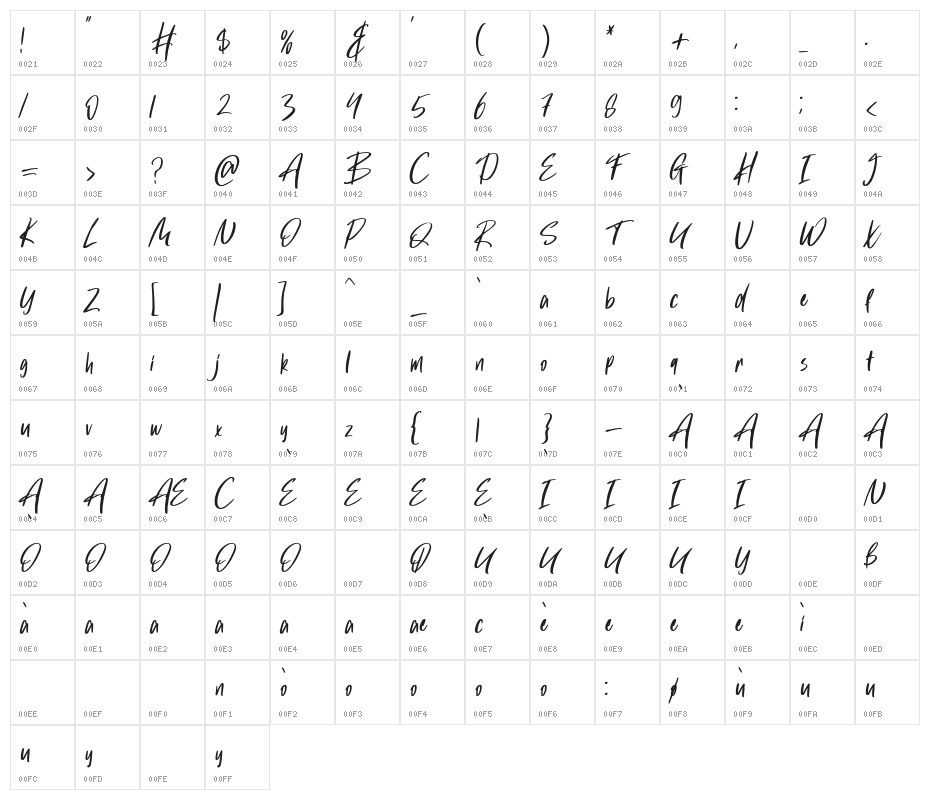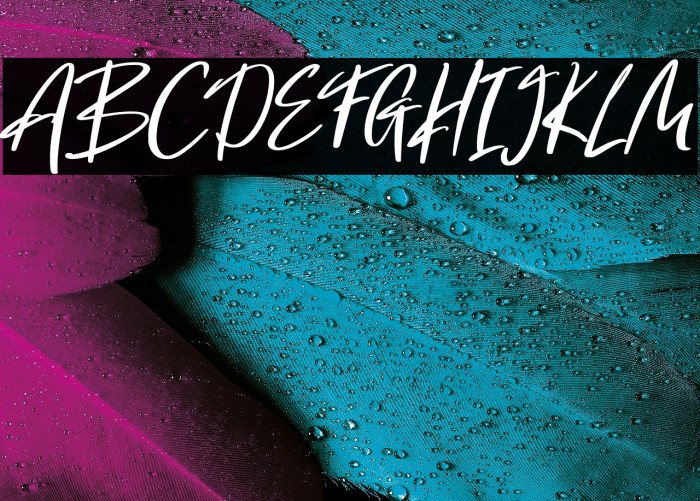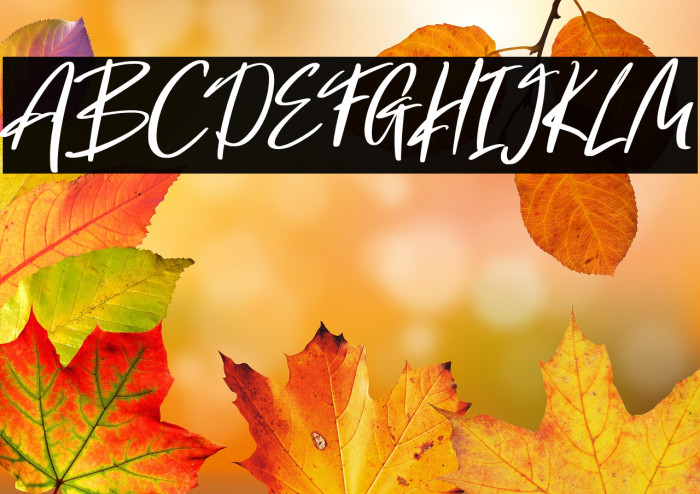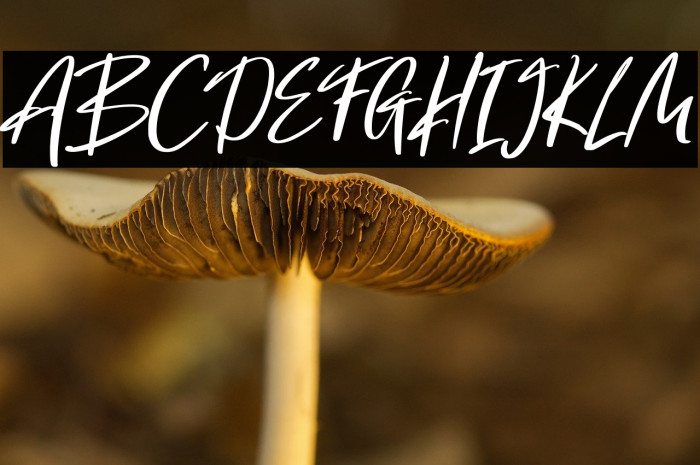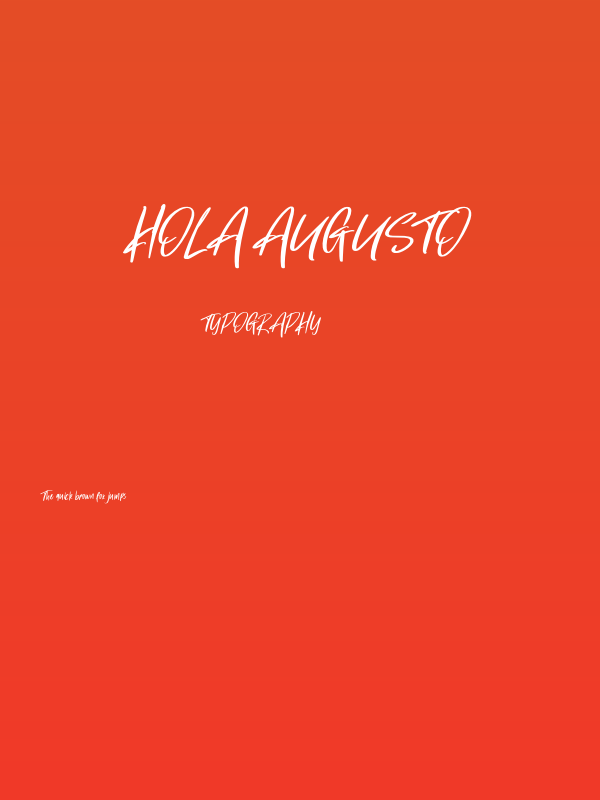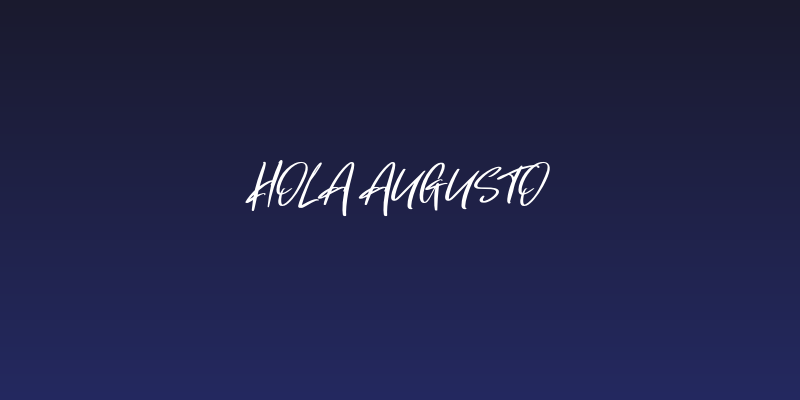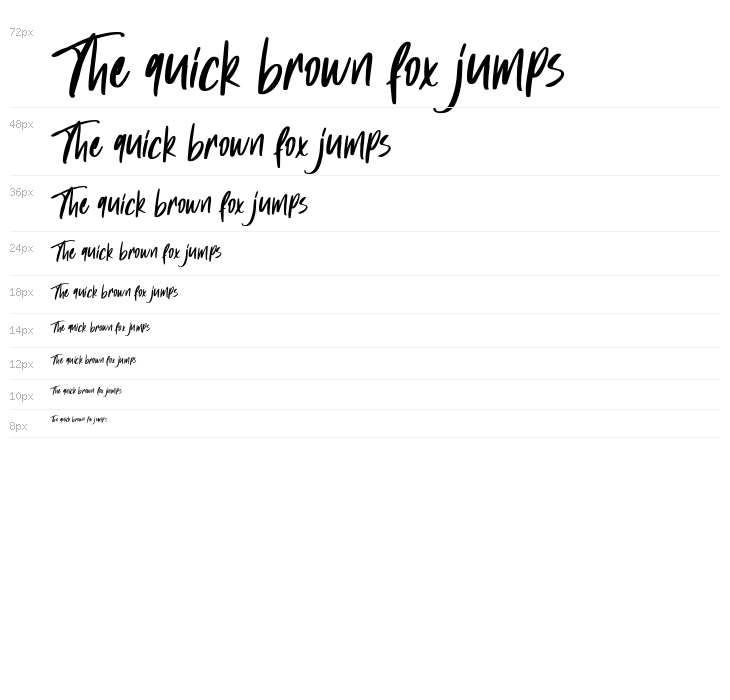
Hola Augusto Font
Hola Augusto Description
This font features a dynamic and expressive handwritten style, characterized by its fluid and energetic strokes. The uppercase letters are bold and slightly slanted, giving a sense of movement and spontaneity. The lowercase letters maintain a consistent flow, with some characters extending below the baseline, adding to its casual and informal appearance. The numerals are well-integrated, matching the overall style with their slightly exaggerated curves. Special characters are creatively designed, maintaining the playful and artistic feel of the font. This typeface is perfect for projects that require a personal touch or a sense of creativity.
Use CaseLogos, Headlines, Invitations
Proposed ProjectsIdeal for greeting cards, invitations, branding projects, and social media graphics.